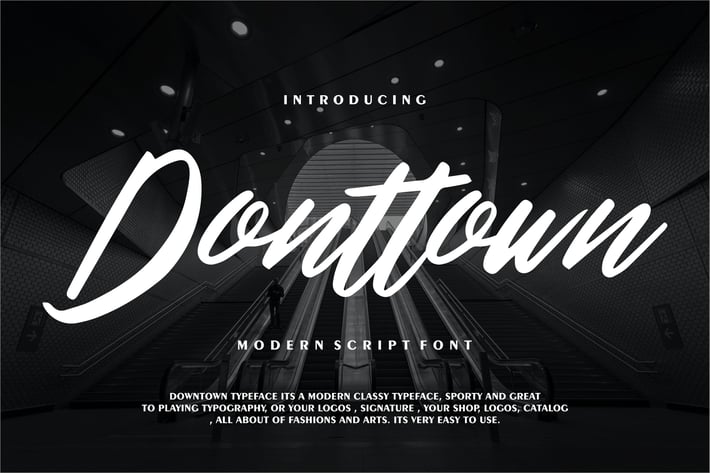
Donttown | Modern Script Font
Donttown | Modern Script Font with a calligraphy style, So beautiful on invitation like greeting cards, branding materials, business cards, quotes, posters, and more!